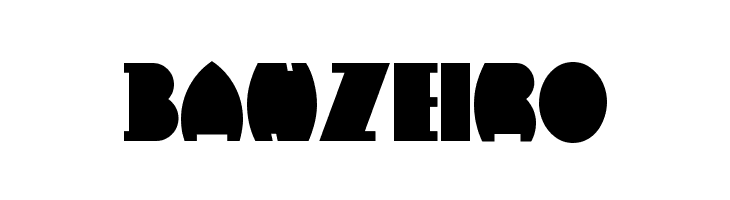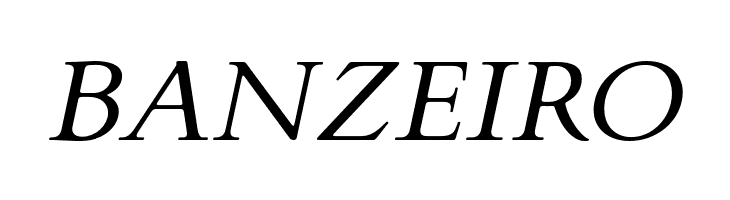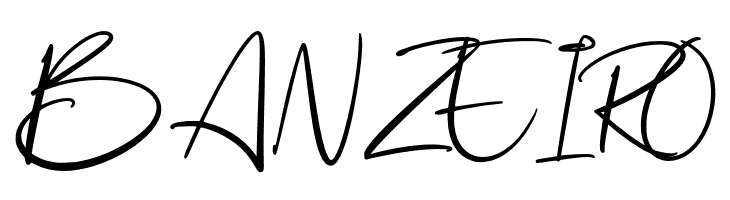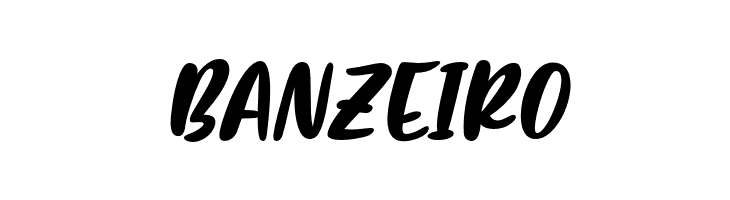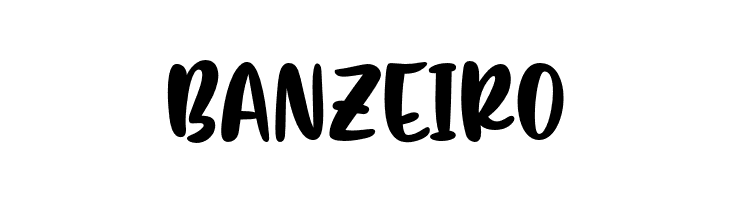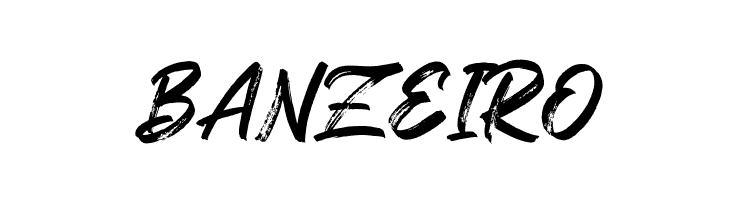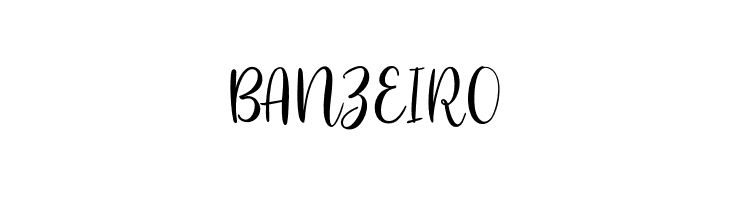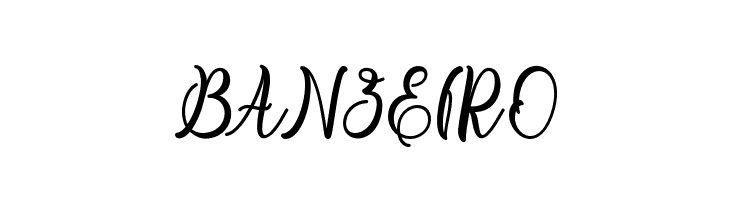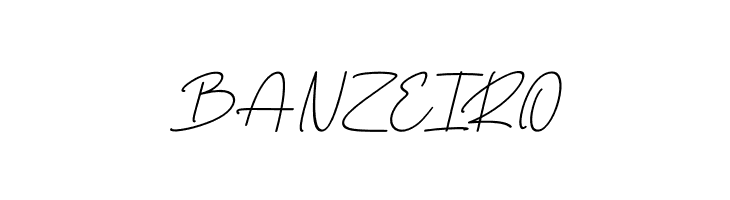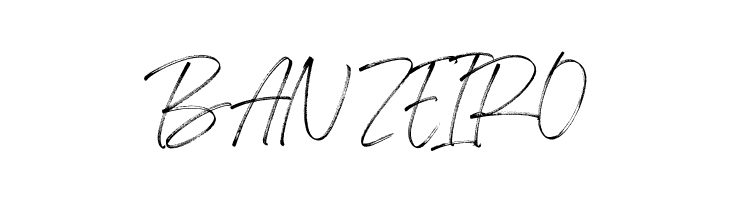
An elegant italic serif font with moderate contrast and refined serifs.
A bold, pixelated font with a retro gaming aesthetic.
A dynamic, cursive font with sharp, angular strokes and a handwritten feel.
A lively, cursive font with elegant loops and a handwritten feel.
A dynamic and flowing script font with elegant, cursive letterforms.
A dynamic font with silhouettes of people, embodying energy and community.
A playful and elegant script font with smooth, flowing curves.
A playful and elegant cursive font with interconnected letters and expressive characters.
A bold, brush-style script font with dynamic, interconnected letters.
A bold, energetic brush script with a hand-painted look.
A bold, brush script font with dynamic, hand-painted strokes.
A dot matrix font with a modern, digital display style.
A stylish and elegant script font with flowing, connected letterforms.
A decorative cursive font with elegant, flowing characters.
A bold, playful handwritten font with a brush-like texture.
A bold, italicized handwritten font with a lively and dynamic style.
A dynamic, expressive handwritten font with fluid, organic strokes.
A geometric, three-dimensional font with angular lines and sharp edges.
A bold, geometric font with high contrast and modern design.
A stylish, handwritten script font with elegant, flowing lines.
A decorative and whimsical serif font with elaborate curves and swirls.
A dynamic, decorative font with a stippled, flowing design.
A lively and expressive handwritten font with dynamic strokes.
A bold, textured, hand-drawn style font with an expressive and dynamic appearance.
A playful, casual handwritten font with smooth, flowing lines.
A dynamic and expressive script font with fluid, handwritten strokes.
A playful, outlined font with whimsical curves and decorative elements.
A bold, hand-drawn font with a vintage, rustic charm.
A playful, bold outline font with a cartoonish and dynamic style.
A bold, retro-inspired font with thick, stylized characters.
A bold, vintage-style font with playful, decorative elements.
A playful, hand-drawn font with bold, irregular strokes.
A bold, condensed font with a modern, clean style.